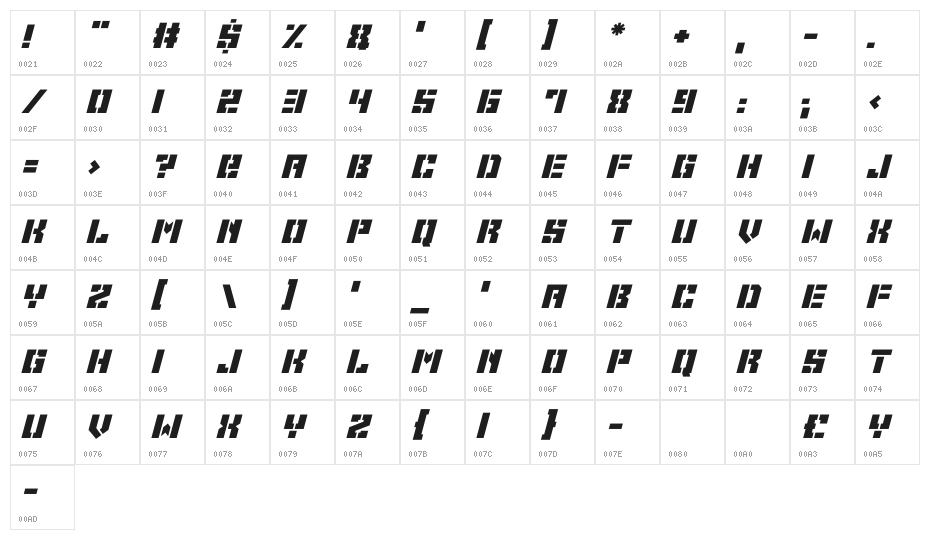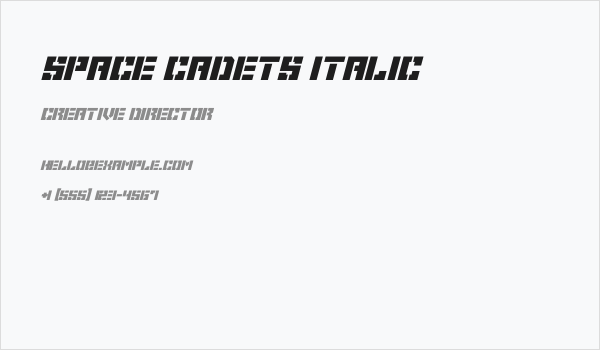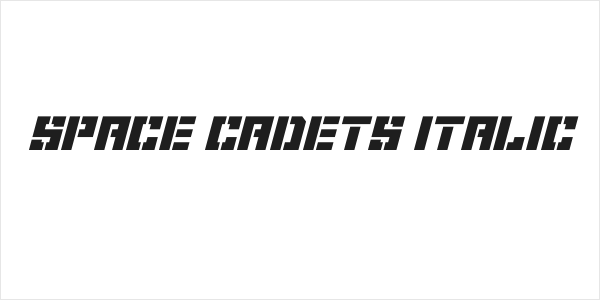
Space Cadets Italic Font
Space Cadets Italic Description
This font features a bold, futuristic design with a distinct italic slant, giving it a dynamic and energetic appearance. The characters are constructed with sharp angles and geometric shapes, creating a sense of movement and modernity. The uppercase and lowercase letters maintain a consistent style, with the lowercase slightly smaller but equally bold. Numbers and special characters follow the same angular and italicized design, ensuring uniformity across all glyphs. The font's unique style makes it stand out, ideal for projects that require a strong visual impact.
| Proposed Projects | Ideal for sci-fi themed designs, video game titles, posters, and branding that requires a modern, dynamic look. |